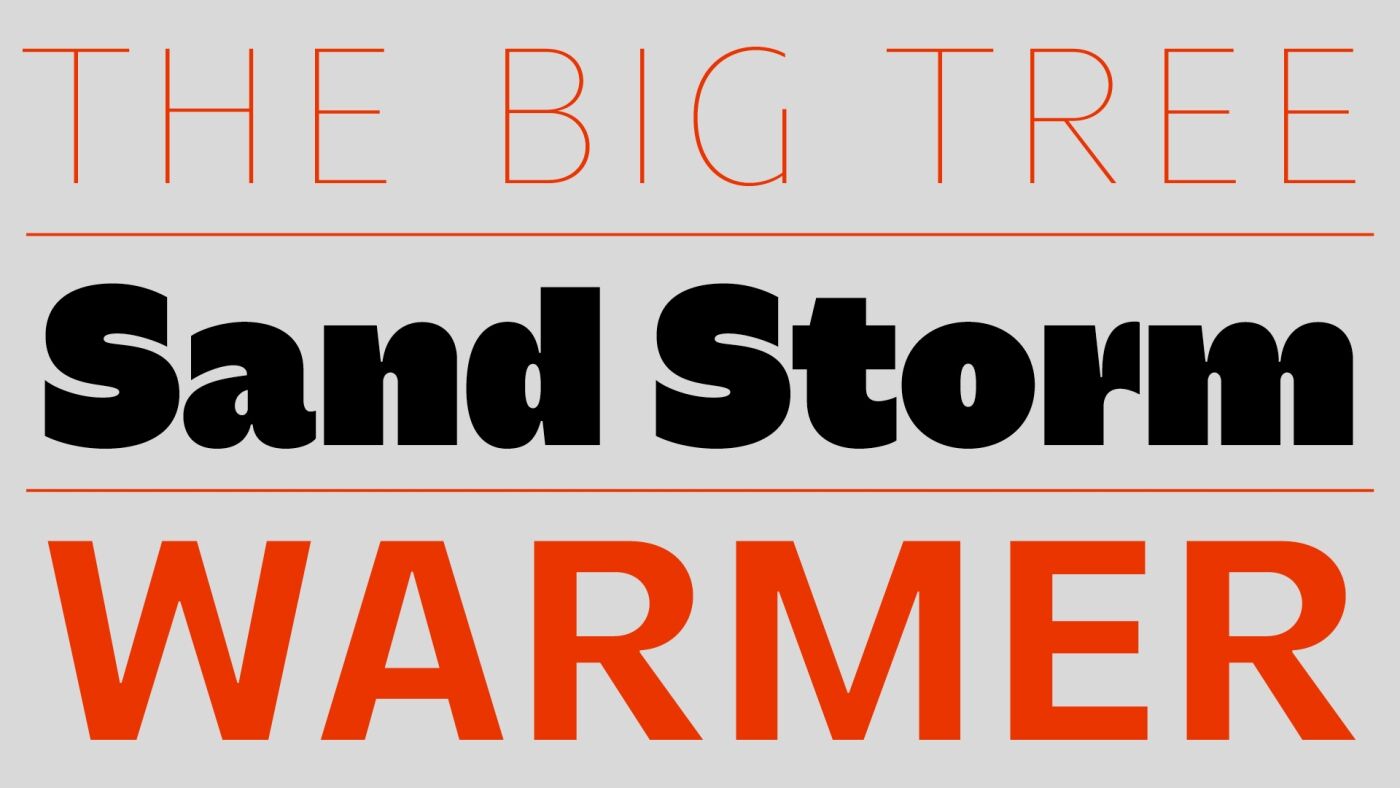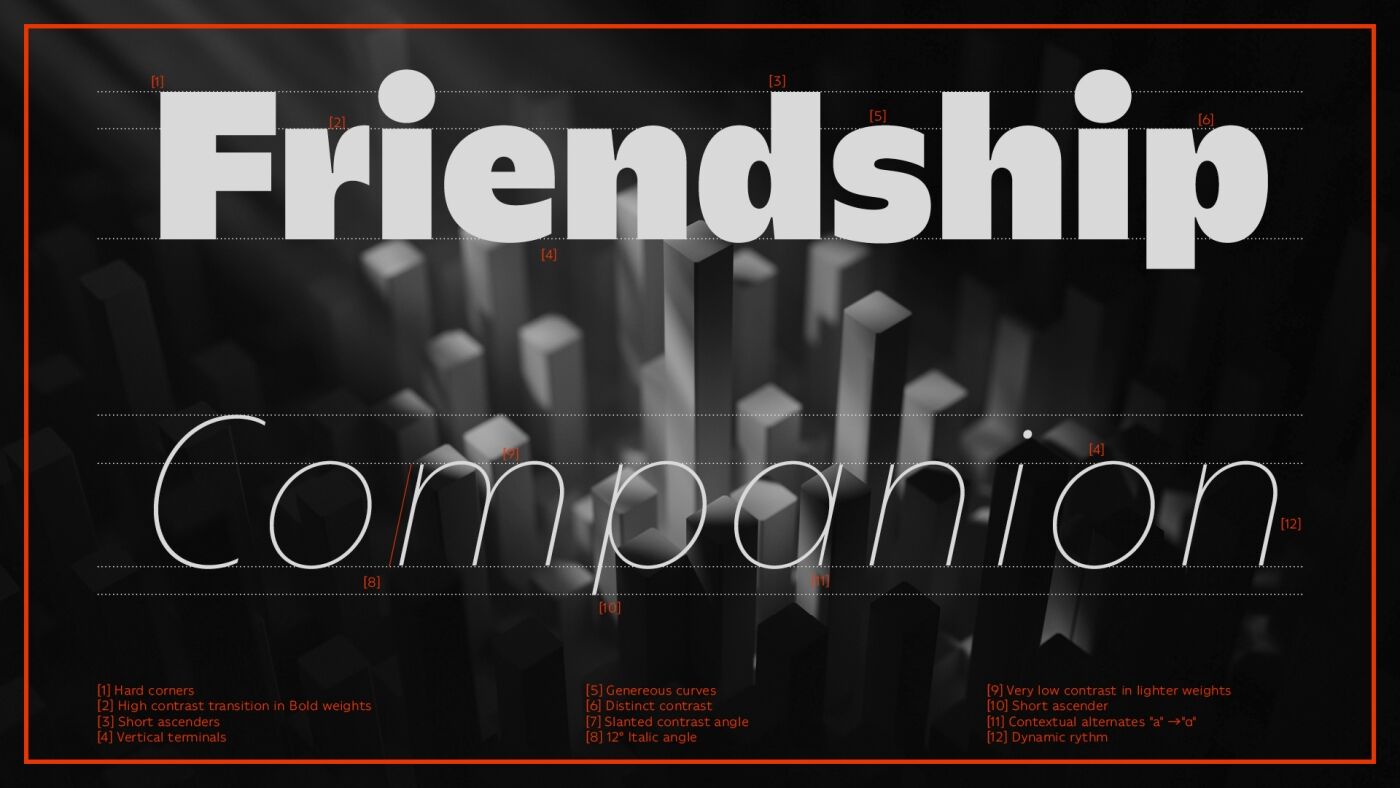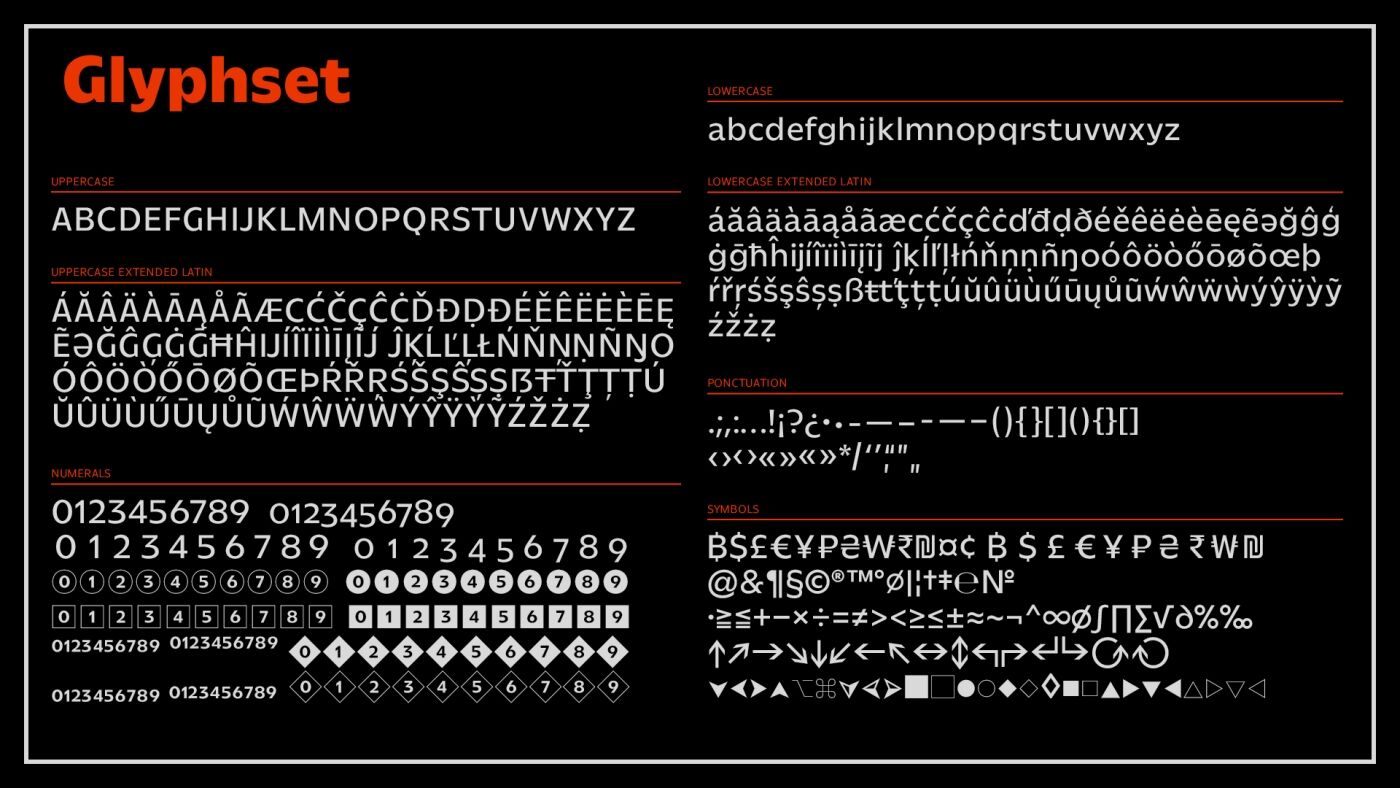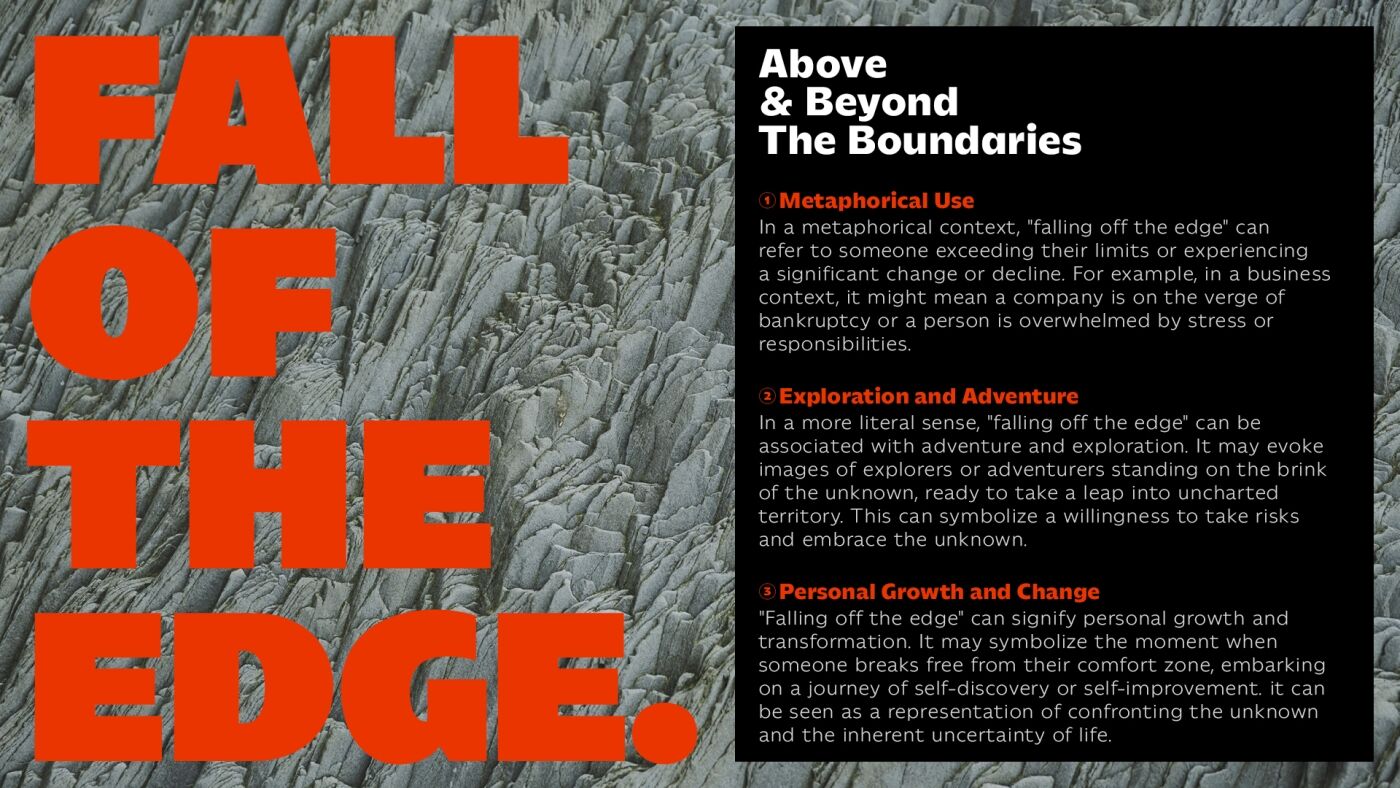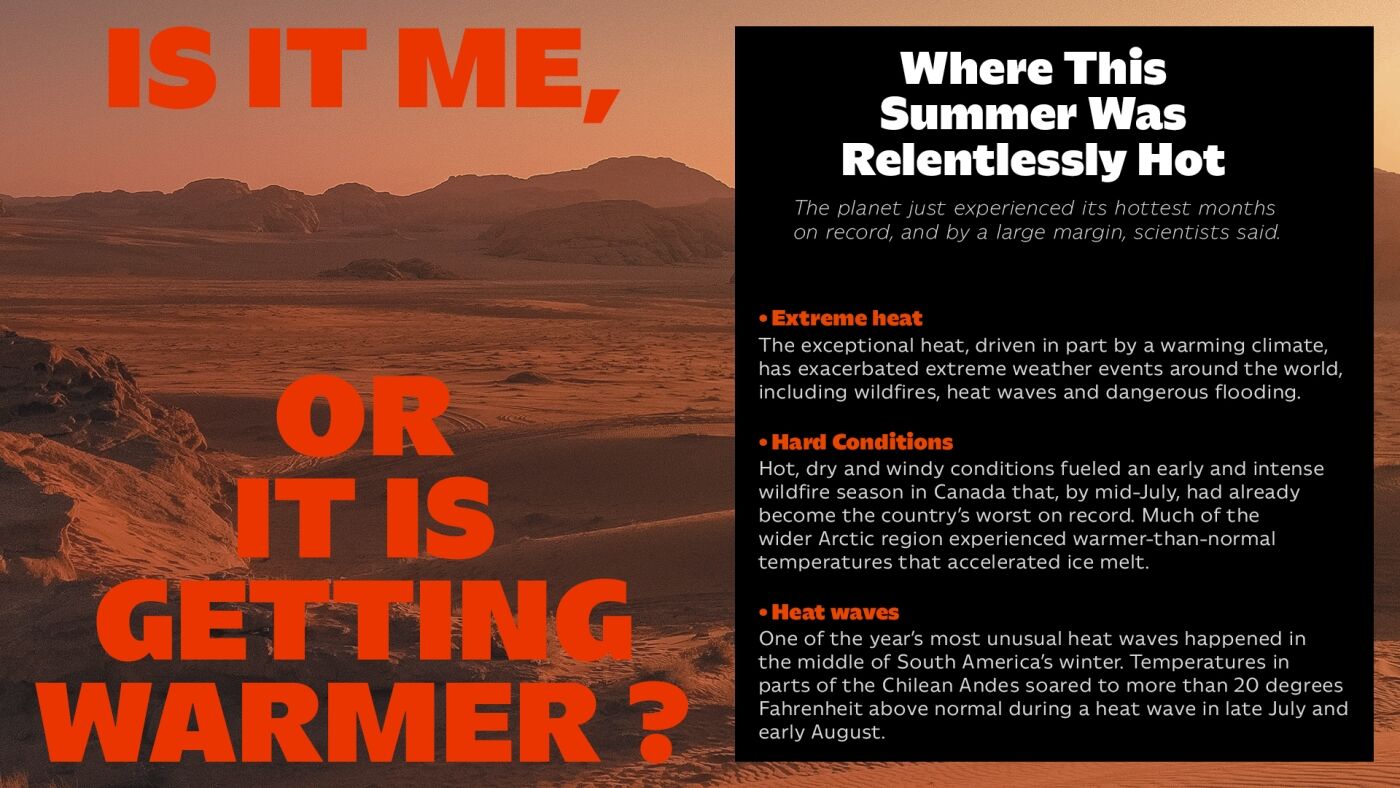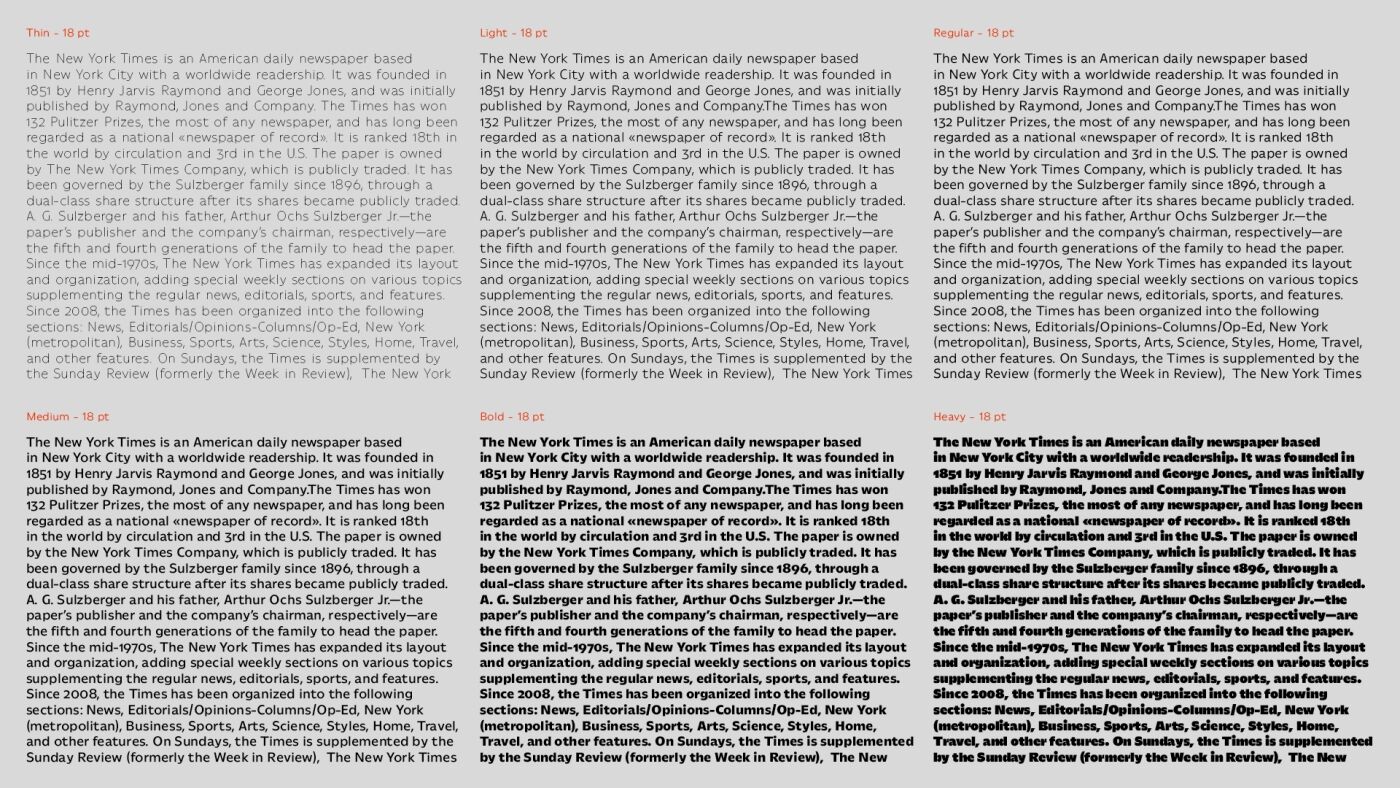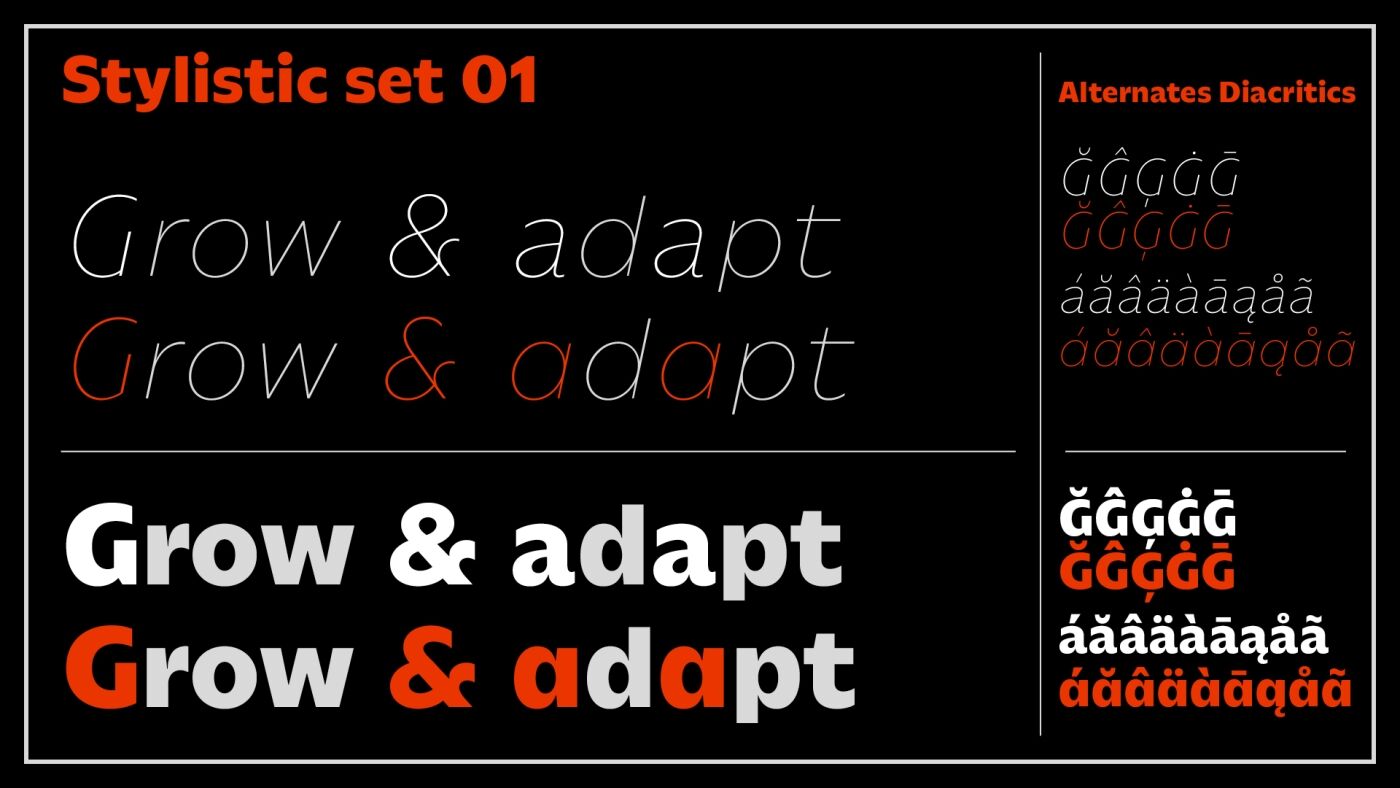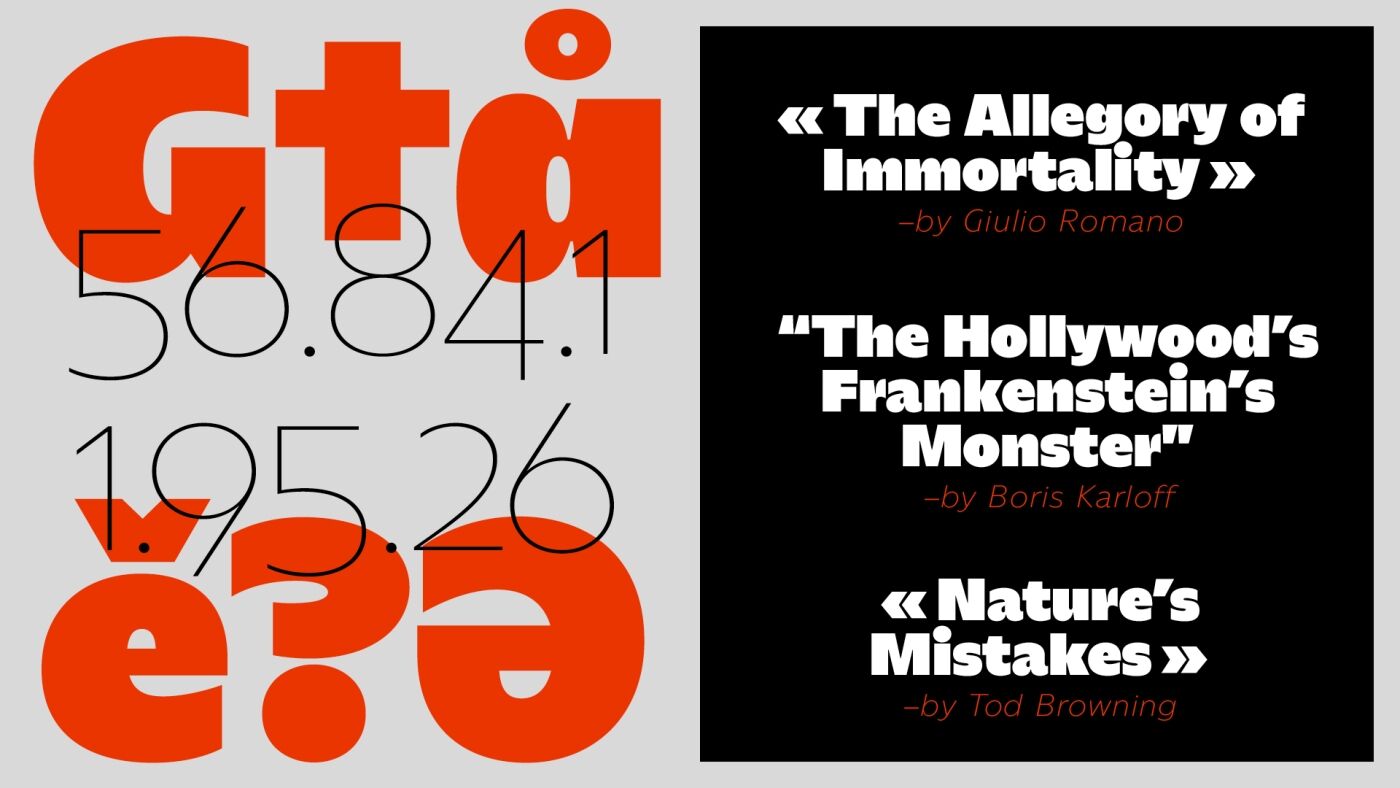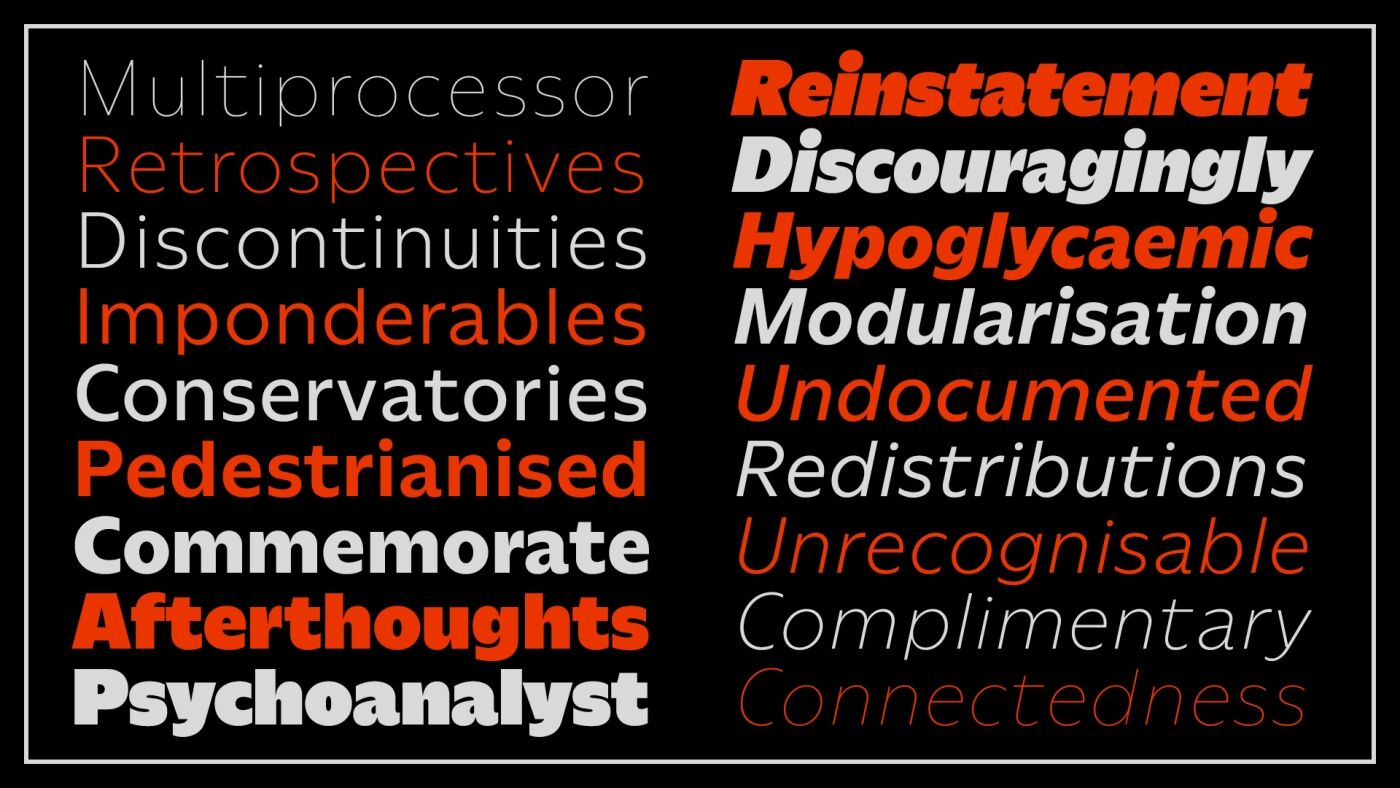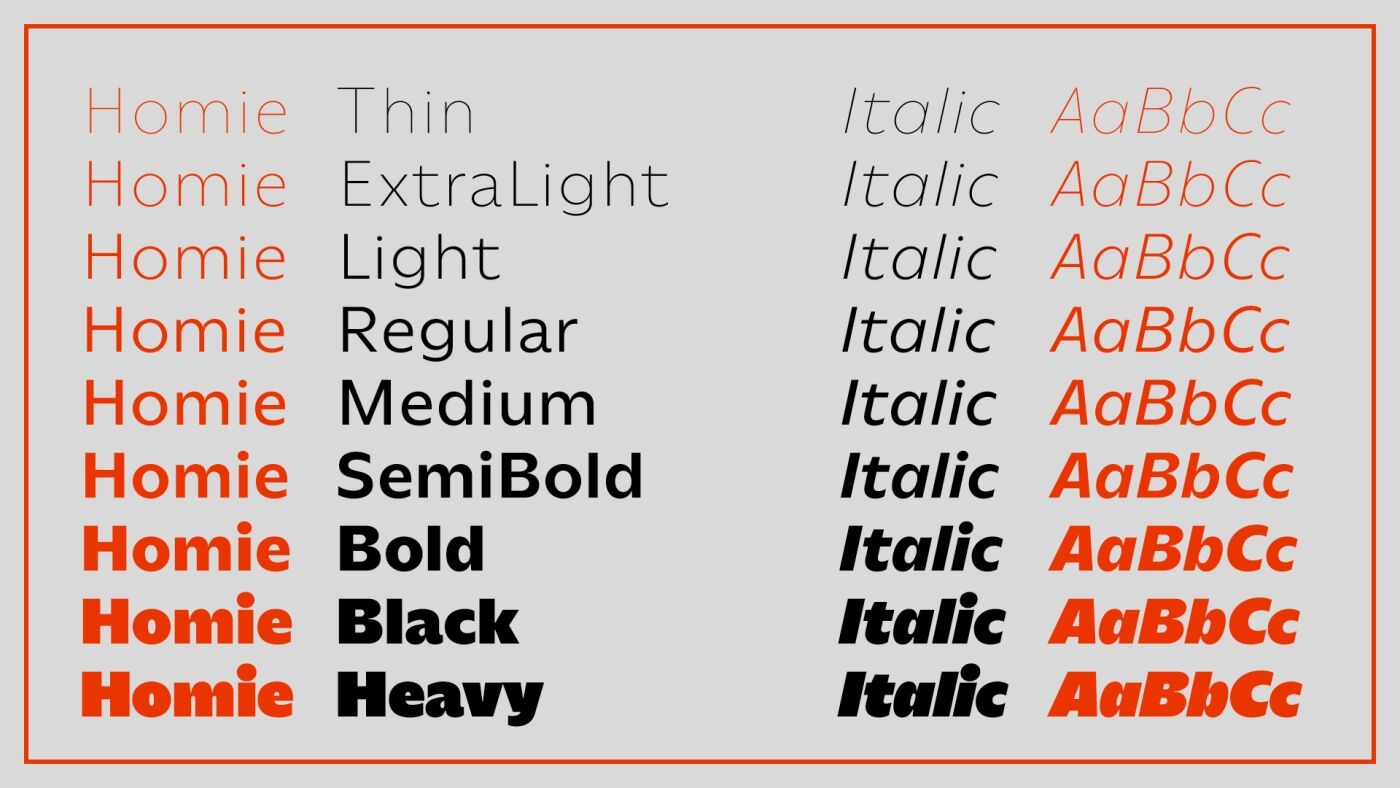
Homie Typeface
Homie, distributed at Blaze Type is a unique and versatile sans-serif typeface designed for a wide range of uses. Originally inspired by French humanist typeface from the 20th century, the design grew into a personal interpretation of this classic style of historic typefaces.
Homie is a humanist sans serif font family exploring the intersection of humanist and geometric designs. Making this typeface family suitable for both reading and display. It combines both of these features, offering a balance of legibility and originality. Homie's intent was to tend to a more geometric approach inside a humanist design. As the style grow bolder, the geometric features are less stated and tend to give the shapes the place they need to occupy space.
One of the key features of Homie is the change of contrast between its weights. Lighter styles feature a low contrast in the counter shapes, making them more legible in text, while bolder weights have a higher contrast, making them better suited for display uses in graphic design. This gives Homie a unique attitude, and spirit, a growing type family of 18 different styles and matching italics, Homie is ready to be your trusty sidekick in every design endeavour.